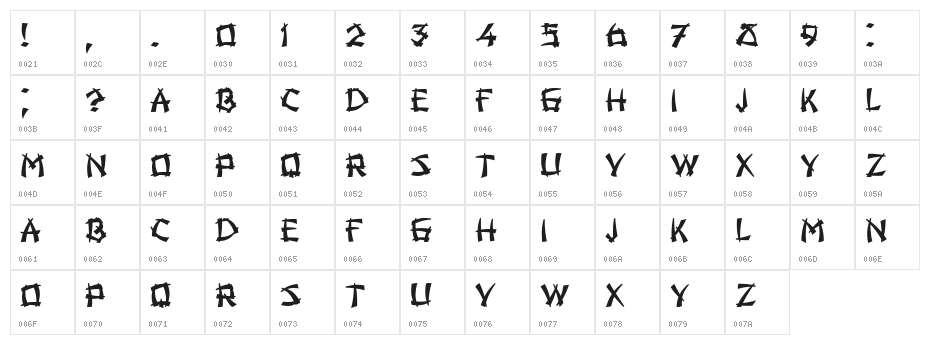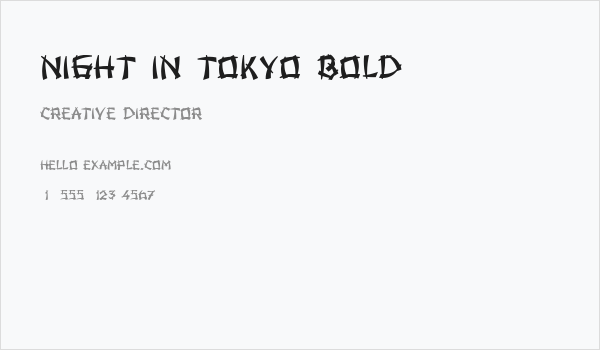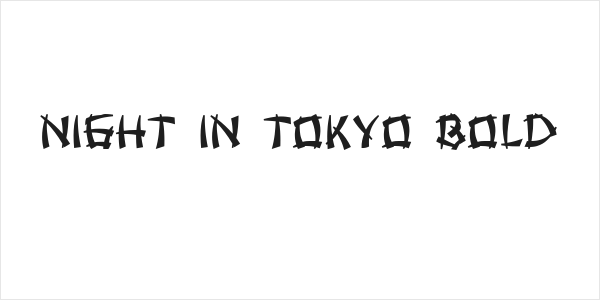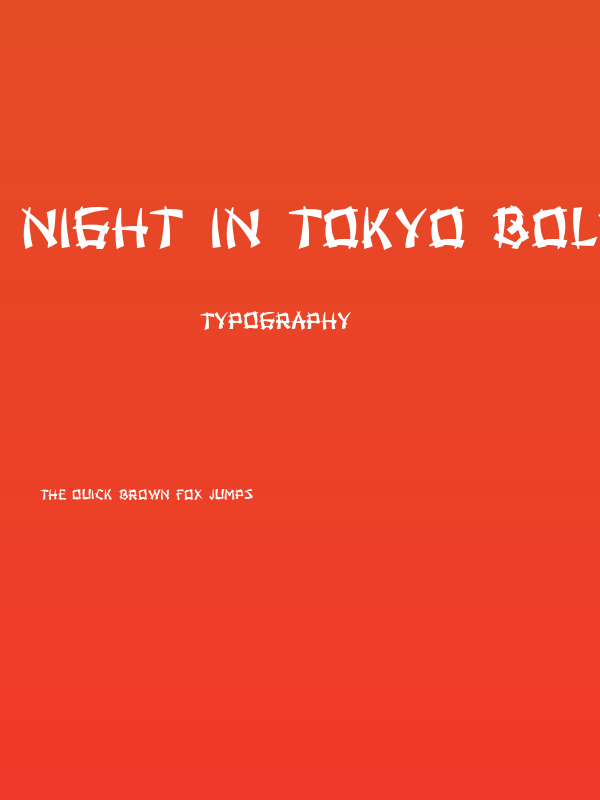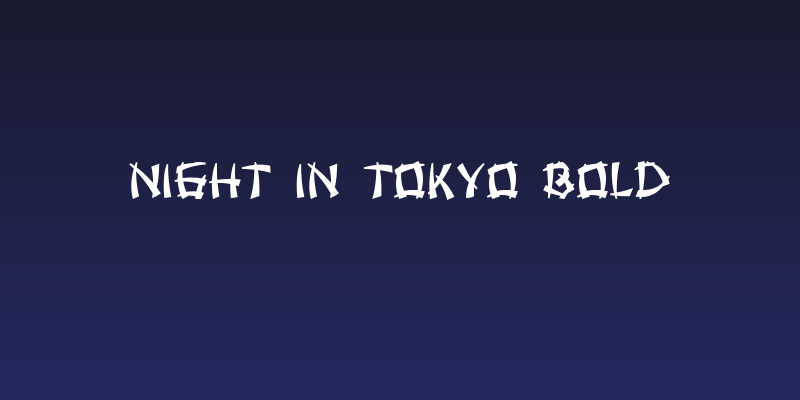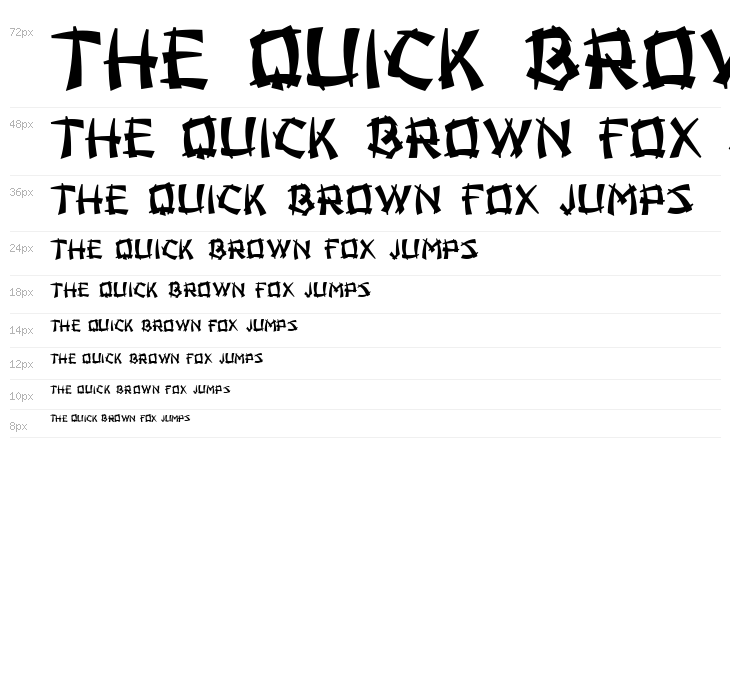
Night in Tokyo Bold Font
Night in Tokyo Bold Description
This font features a bold, dynamic style with sharp, angular edges and a distinctively edgy appearance. The characters are designed with a sense of motion and energy, reminiscent of urban graffiti or street art. The strokes are thick and uneven, giving the font a rugged and rebellious feel. Each letter is crafted with unique cuts and angles, creating a sense of individuality and flair. The numbers and special characters maintain the same bold and expressive style, ensuring consistency throughout the typeface. This font is ideal for projects that require a strong, impactful visual presence.
| Overall Style | Modern, Urban |
| Proposed Projects | Perfect for street art designs, music album covers, posters, and urban-themed branding. |